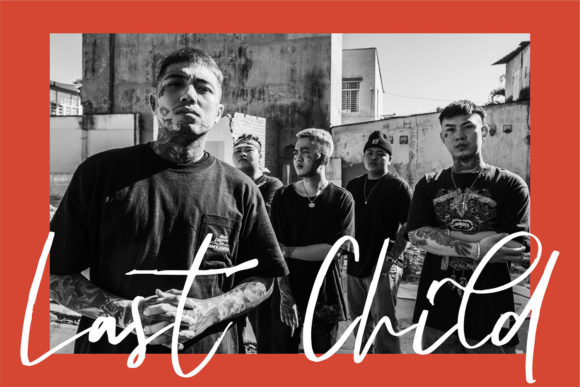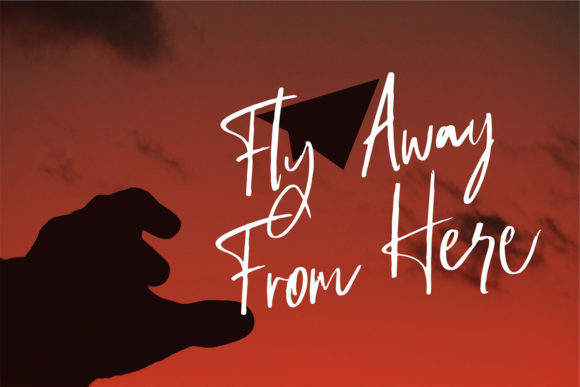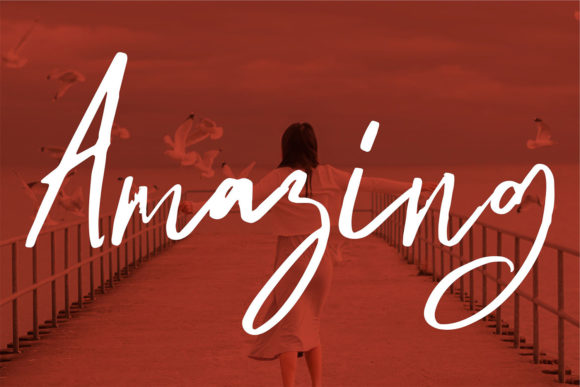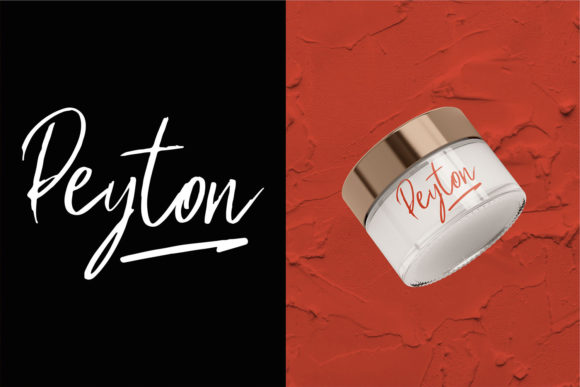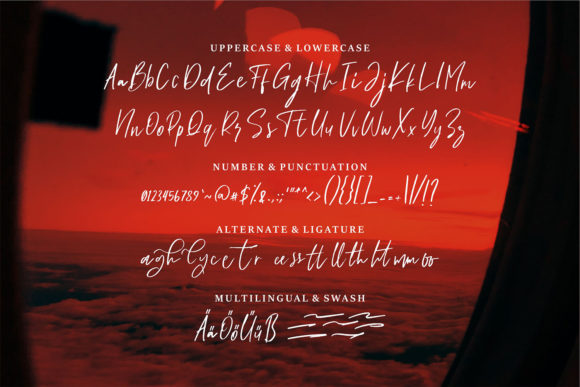
Discover the Enchanting Antoinette Font: Add a Touch of Romance to Your Designs
Are you looking for a font that can add a romantic feel to your next project? Look no further than the Antoinette font. This enchanting handwritten font is perfect for designers and crafters who want to create beautiful and unique designs that capture the heart. In this article, we’ll explore the features and applications of the Antoinette font, and show you how to make the most of this versatile script font.
What is Antoinette Font?
Antoinette is a beautiful handwritten font that is designed to add a touch of elegance and romance to your designs. With its flowing script and delicate lines, this font is perfect for creating beautiful greeting cards, invitations, and headlines. The Antoinette font is a versatile script font that can be used for a wide range of applications, from digital designs to print materials.
Features of Antoinette Font
The Antoinette font has several features that make it a popular choice among designers and crafters. Some of its key features include:
- Handwritten script: The Antoinette font has a beautiful handwritten script that gives it a personal and unique touch.
- Delicate lines: The font features delicate lines that add to its elegance and sophistication.
- Versatile: The Antoinette font can be used for a wide range of applications, from greeting cards to headlines.
- Easy to read: Despite its delicate lines, the Antoinette font is easy to read, making it perfect for body text and headlines.
Applications of Antoinette Font
The Antoinette font has a wide range of applications, making it a great addition to any designer’s toolkit. Some of the ways you can use the Antoinette font include:
- Greeting cards: The Antoinette font is perfect for creating beautiful greeting cards for special occasions such as weddings, anniversaries, and birthdays.
- Invitations: Use the Antoinette font to create elegant and sophisticated invitations for weddings, parties, and other events.
- Headlines: The Antoinette font is great for creating eye-catching headlines for blogs, magazines, and other publications.
- Logos: The Antoinette font can be used to create beautiful and unique logos for businesses and brands.
Tips for Using Antoinette Font
Here are some tips for using the Antoinette font in your designs:
- Use it sparingly: While the Antoinette font is beautiful, it can be overwhelming if used too much. Use it sparingly to add a touch of elegance to your designs.
- Pair it with other fonts: The Antoinette font pairs well with other fonts, such as sans-serif fonts. Experiment with different font combinations to find the perfect look for your design.
- Adjust the size: The Antoinette font can be used at different sizes, from large headlines to smaller body text. Experiment with different sizes to find the perfect fit for your design.
The Antoinette font is a beautiful and versatile script font that can add a touch of romance and elegance to your designs. With its flowing script and delicate lines, this font is perfect for creating beautiful greeting cards, invitations, headlines, and more. Whether you’re a designer or crafter, the Antoinette font is a great addition to your toolkit.